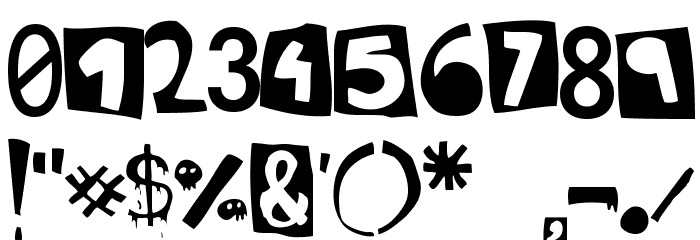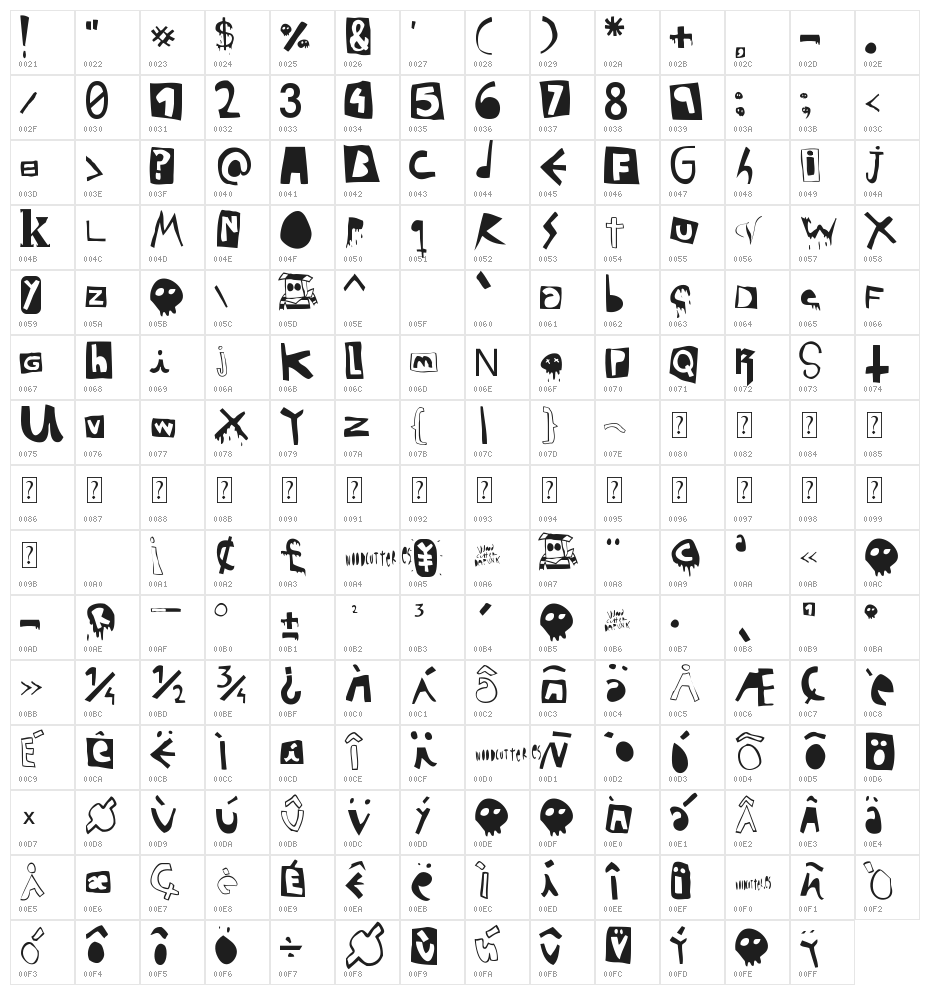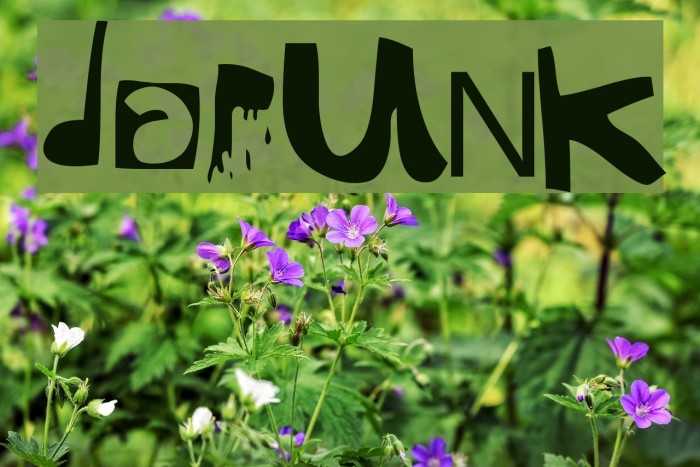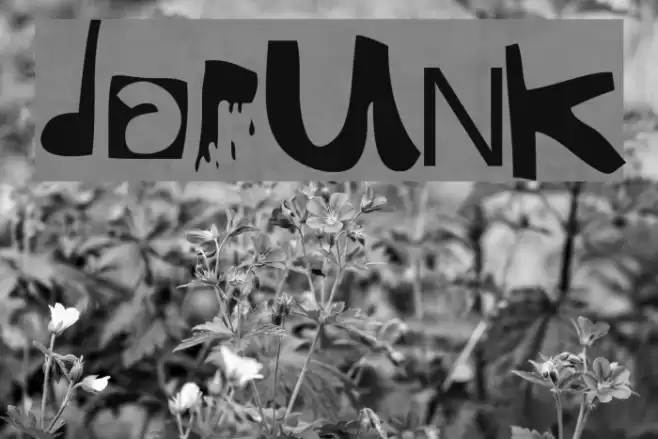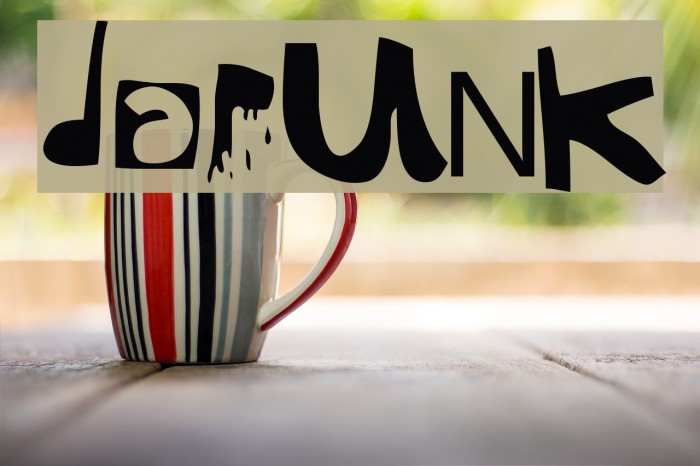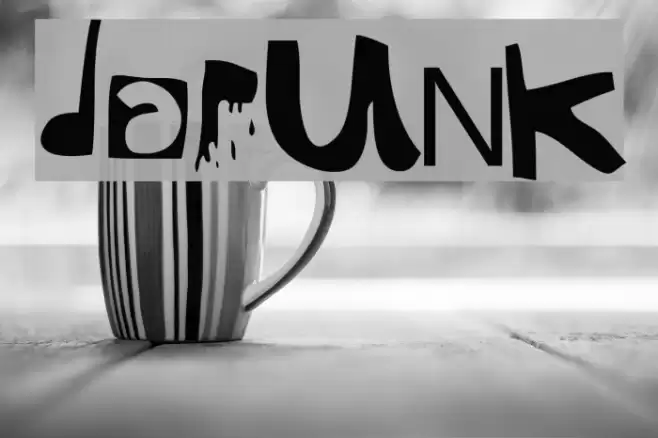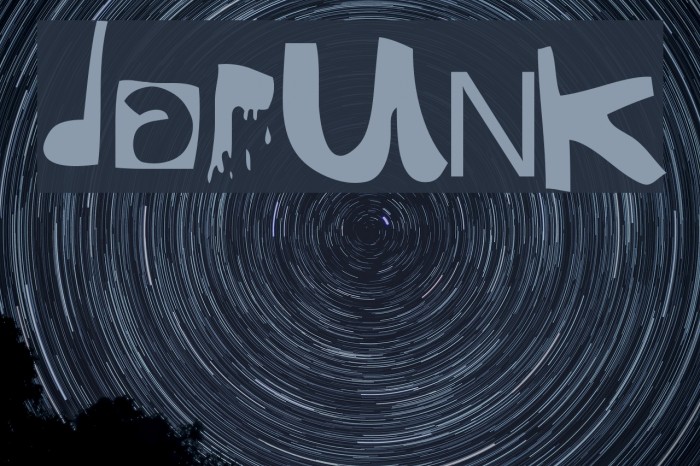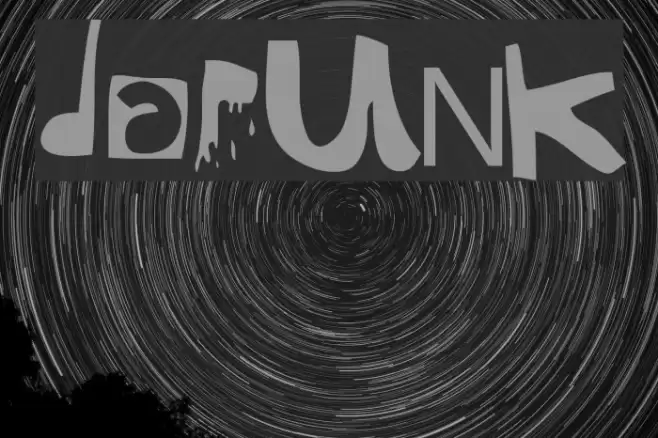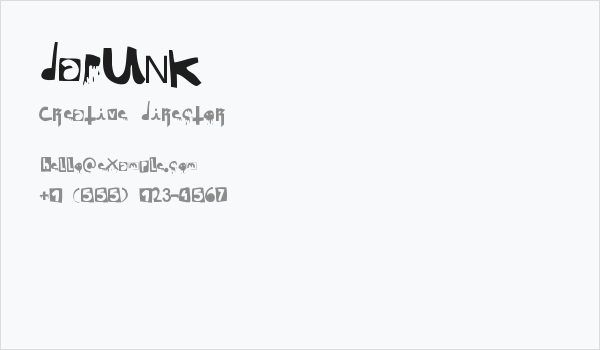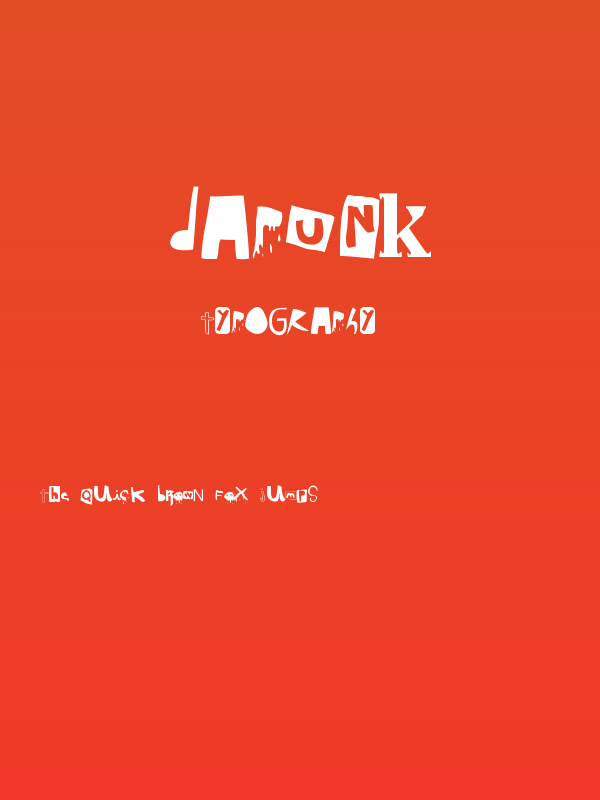
DaPunk Font
DaPunk Description
This font features a bold, eclectic design with a rebellious and edgy aesthetic. The characters are irregular and asymmetrical, with a mix of sharp angles and rounded edges, giving it a chaotic yet artistic feel. Some letters have unique embellishments, such as drips or stars, adding to its punk-inspired style. The font is highly decorative, with each character appearing as a standalone piece of art. It is designed to grab attention and convey a sense of individuality and nonconformity.
| Proposed Projects | Ideal for music album covers, posters, graffiti art, and any project requiring a bold, unconventional look. |